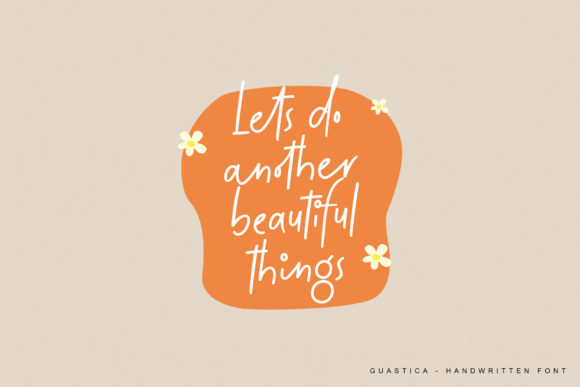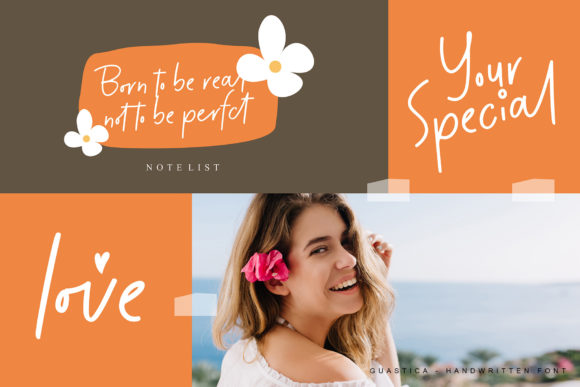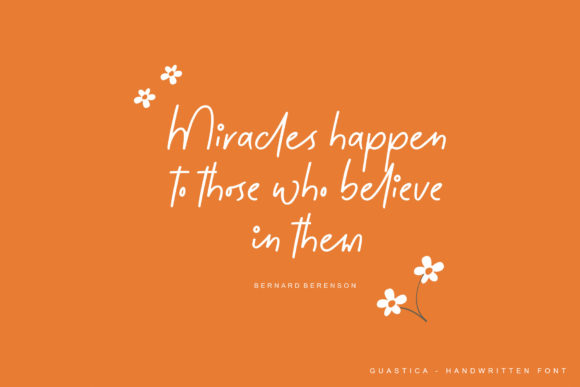
About Guastica Font
Guastica is a dazzling and delicate script font. This font is PUA encoded which means you can access all glyphs and swashes with ease!